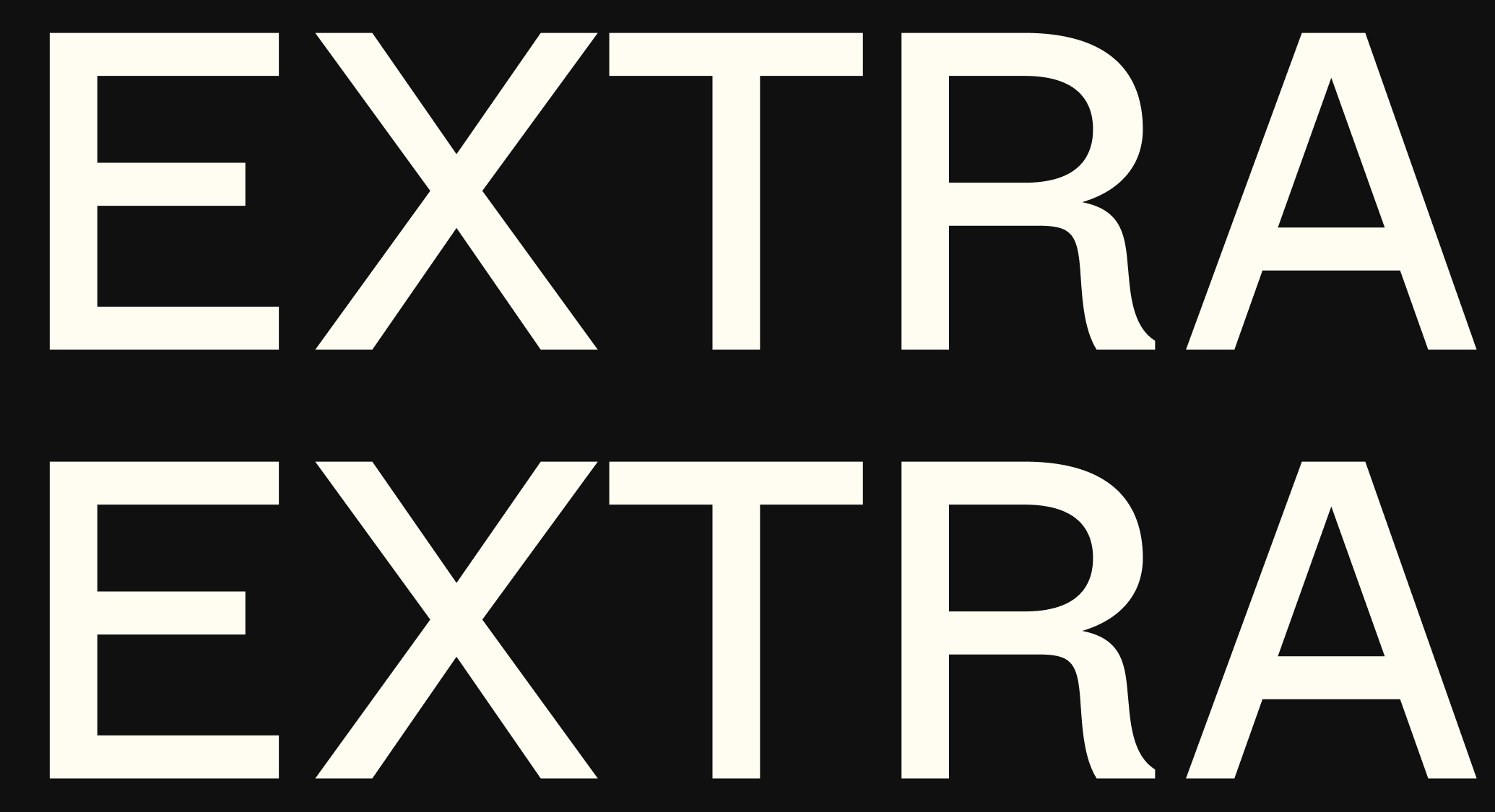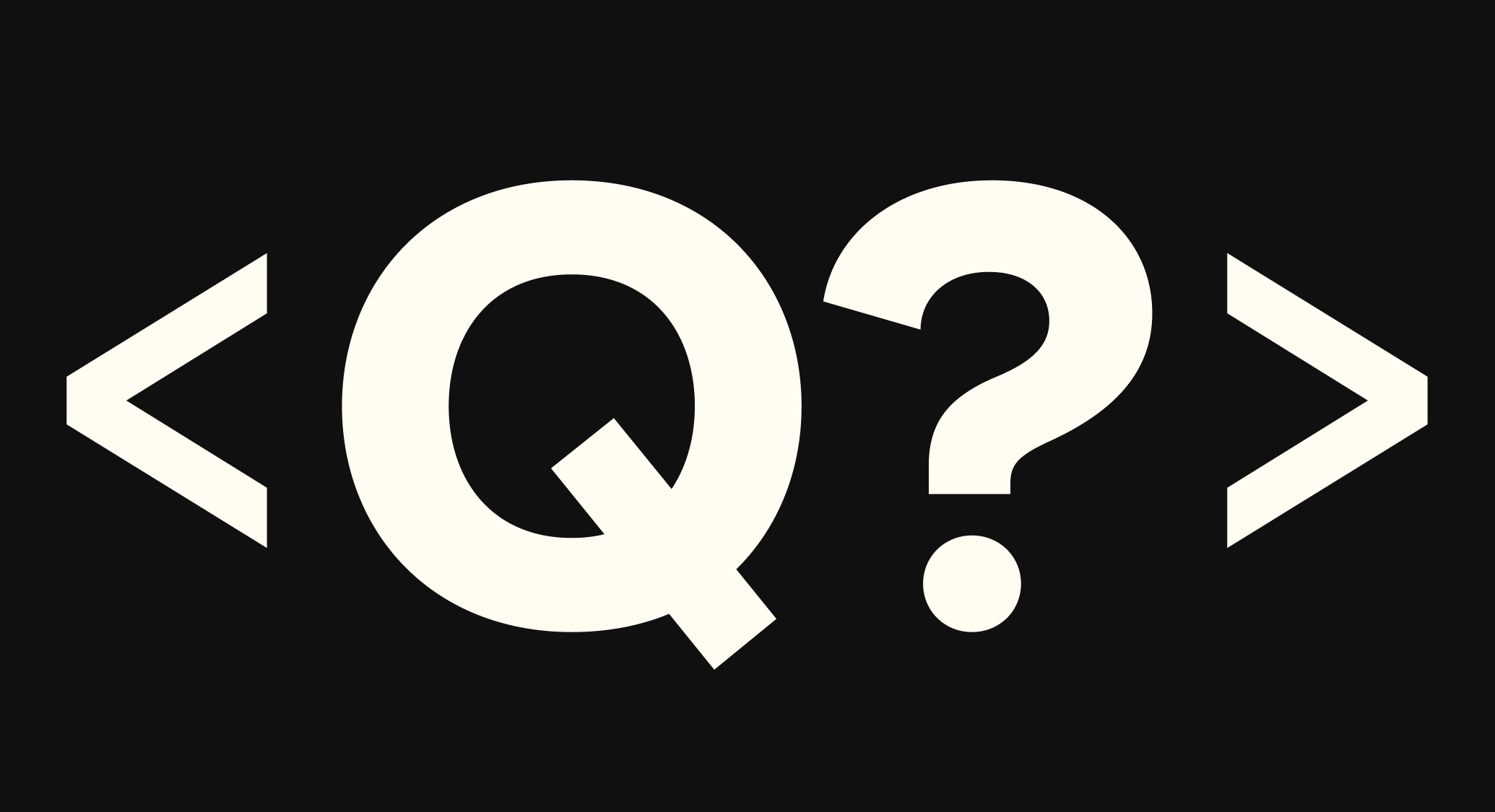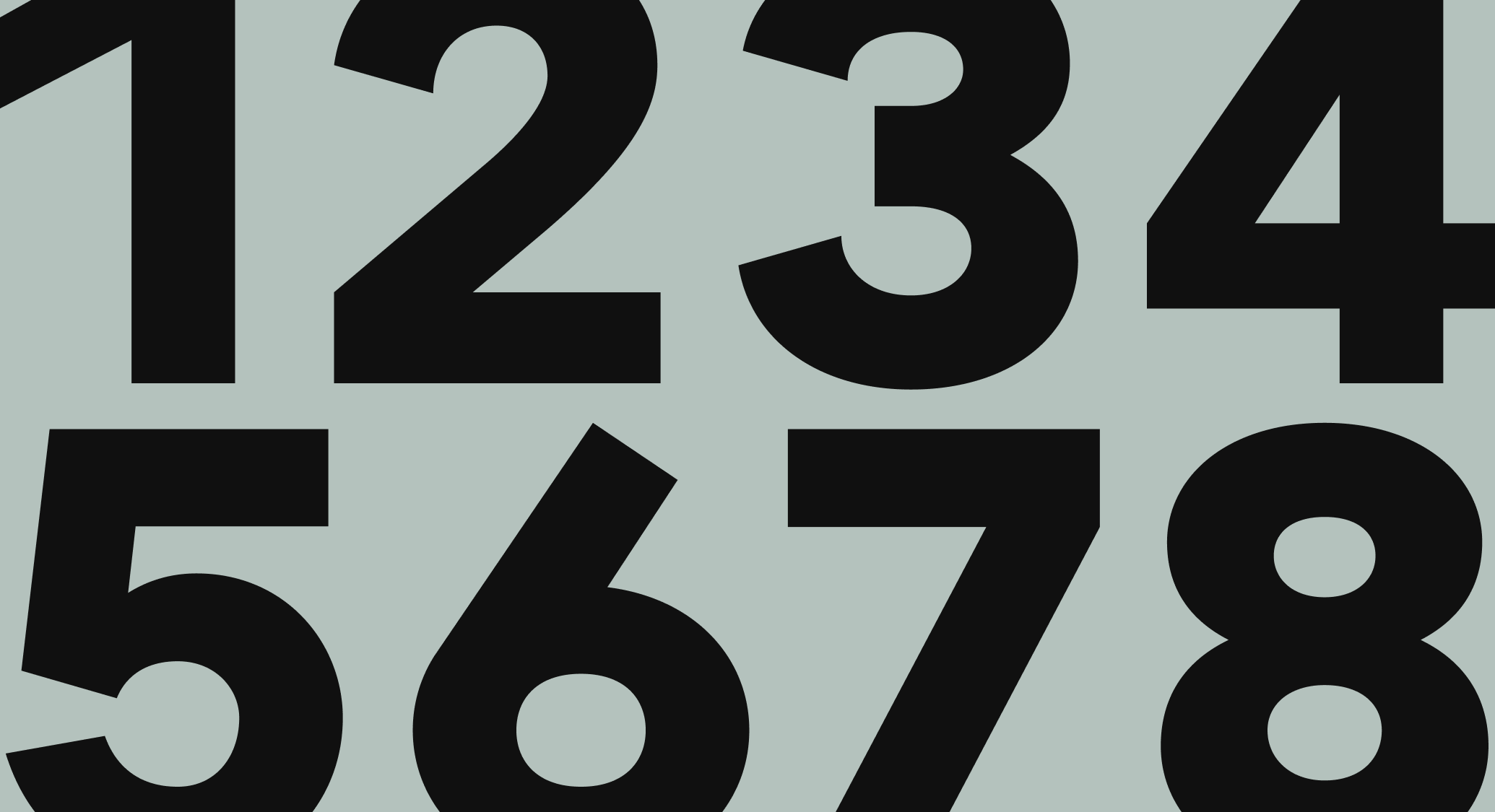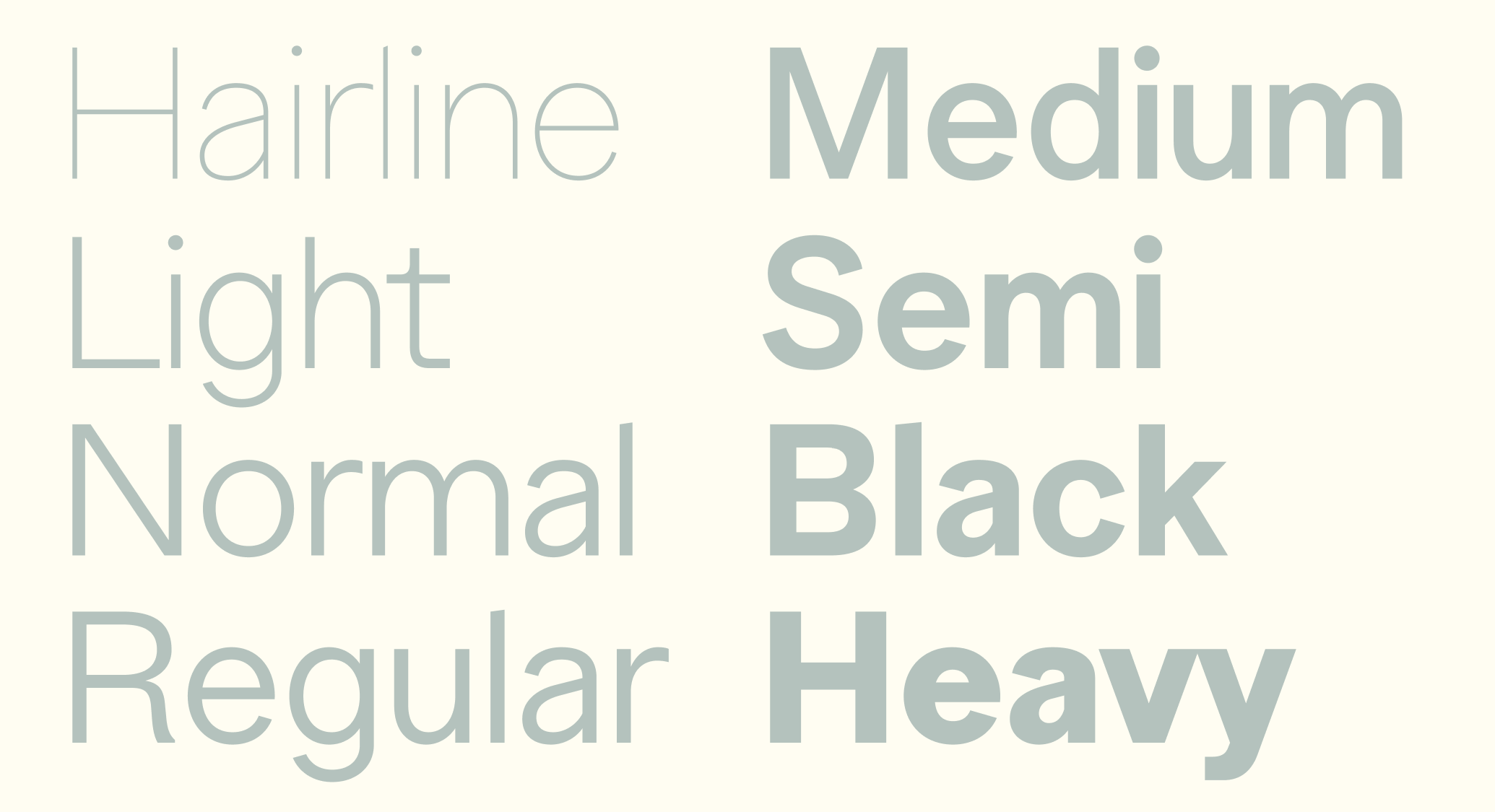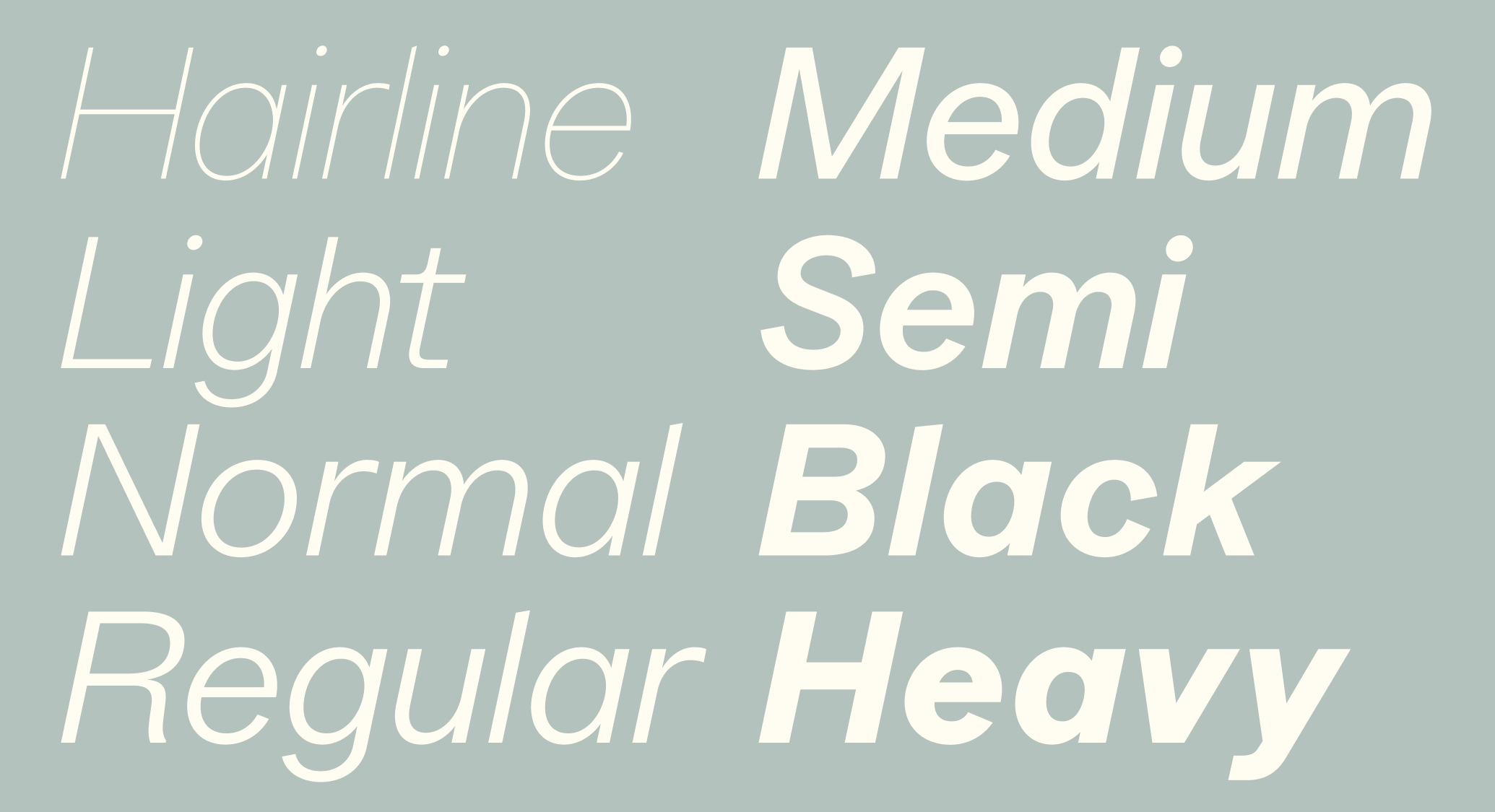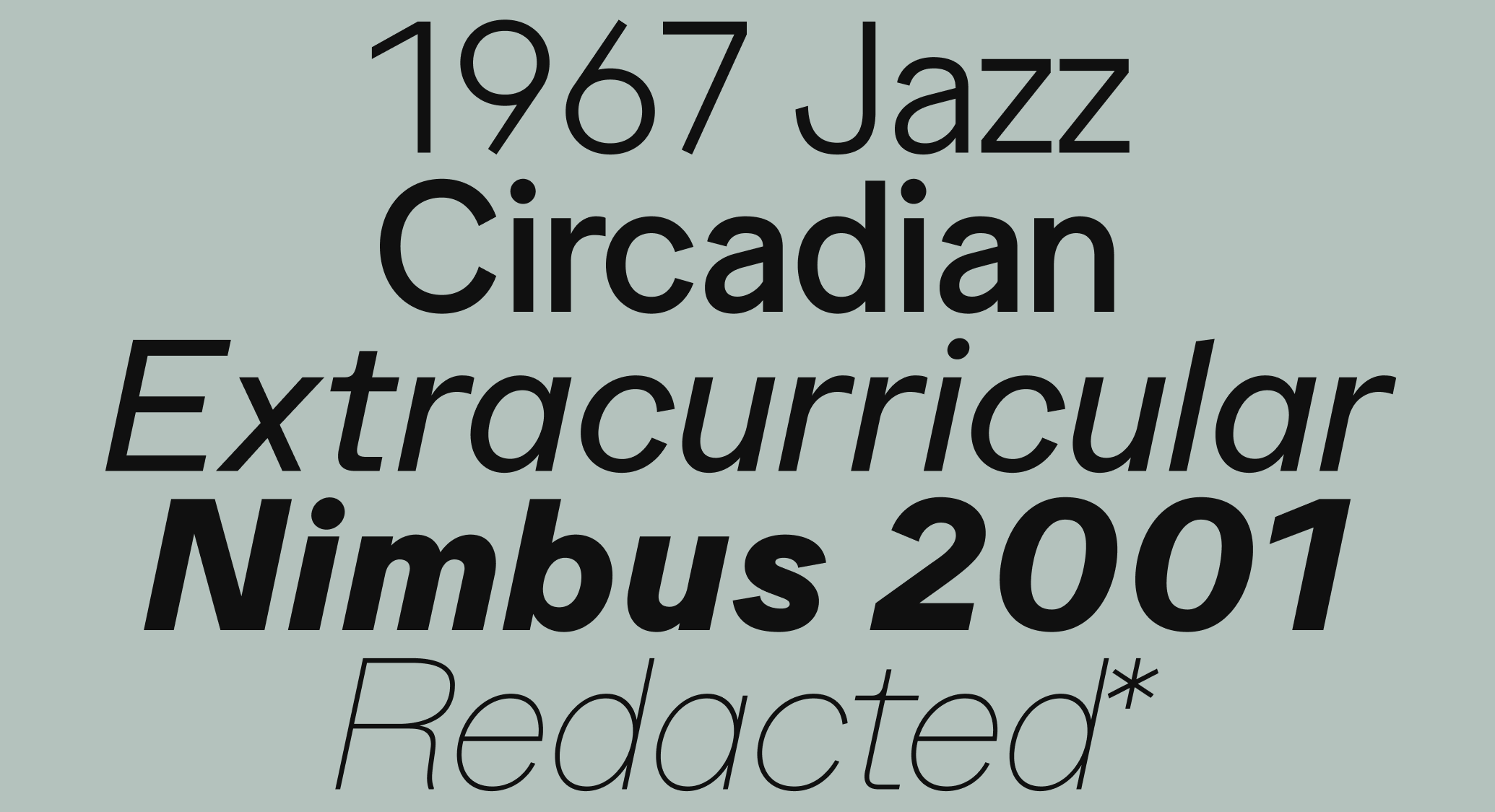
AF Quartermaster
AF Quartermaster is a multi-use super-tool for any advanced design arsenal. With parabolic forms and scientifically precise vectors, it comes in an explosive range of weights spanning Hairline to Heavy. In the hands of an expert, this grotesque typeface can unlock access to the most secure locations imaginable — and fight its way out to make a clean getaway.